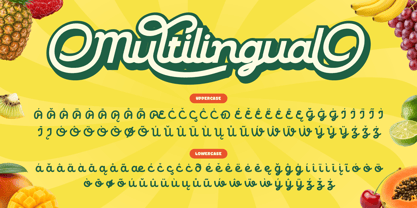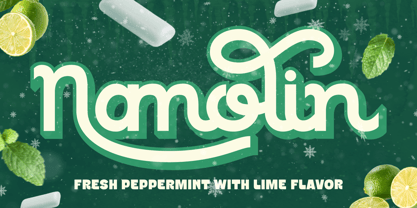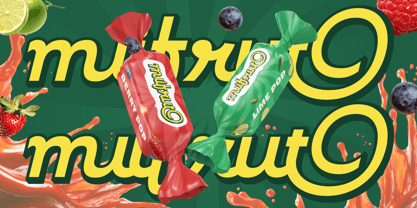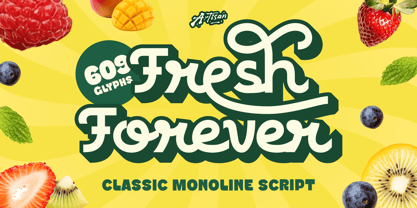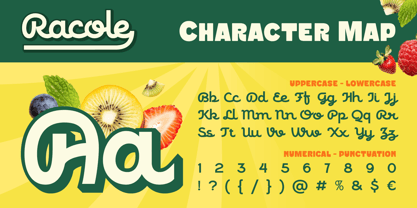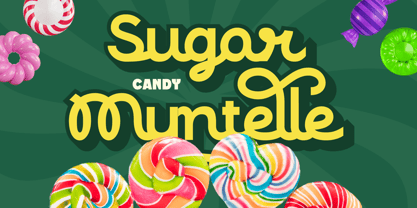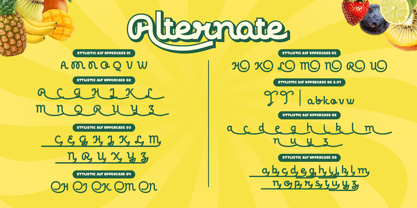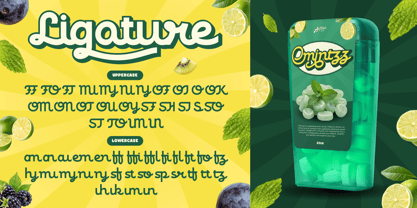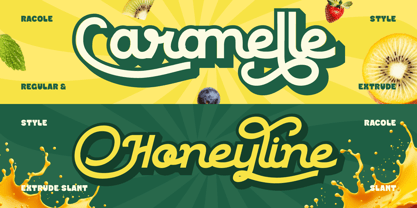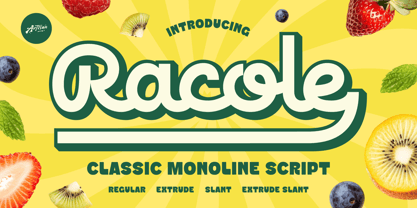
Racole
Die Schriftfamilie Racole wurde von Meidy Meichico entworfen und von Artisan Themes veröffentlicht. Racole enthält 4 Stile und Familienpaketoptionen. Mehr über diese Familie
Racole! A bold, bubbly classic monoline script that feels like a warm summer day in font form. Inspired by retro candy shops and fresh fruit markets, Racole brings that irresistible feel-good energy to any design it touches.
With its thick, confident strokes and playful bounce, this font is made for brands that want to stand out on the shelf, pop on screen, and put a smile on every customer's face. The pack comes loaded with 4 styles — Regular, Extrude, Slant, and Extrude Slant — so you can mix and layer for eye-catching results. Whether you're designing a juice label, a bakery logo, or a social media post, Racole delivers instant charm without breaking a sweat.
Perfect for: Food and beverage branding, Candy and snack packaging, Product label, Cafe and restaurant menu, Gift and greeting cards, Social media content, Organic and fresh brand, Logo and word mark design
Features: A - Z set (Uppercase & Lowercase), Number, Punctuation, Alternates, Ligatures, Multilingual